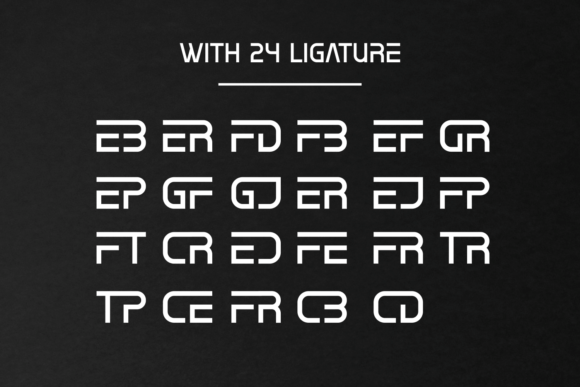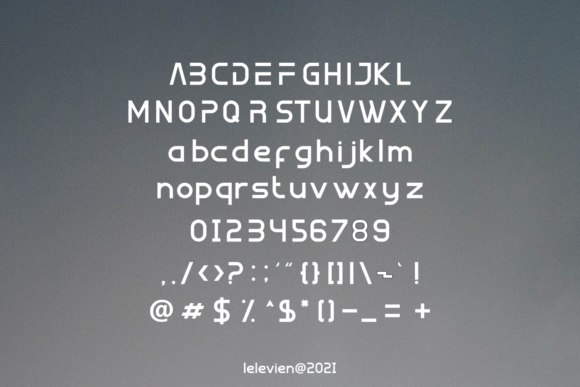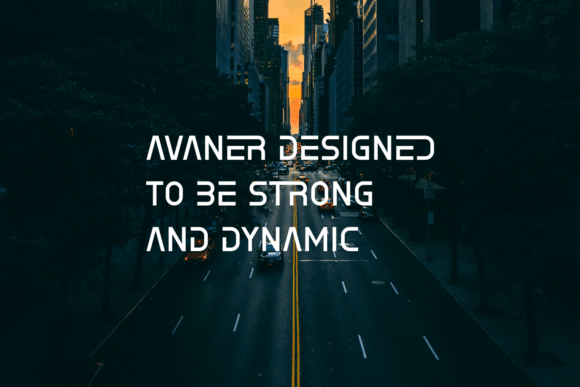
Avaner Font: Elevate Your Designs with a Stylish and Unique Display Font
Are you tired of using the same old fonts in your designs? Do you want to add a touch of elegance and sophistication to your creative projects? Look no further than Avaner Font, a stylish and uniquely-shaped display font that’s sure to take your designs to the next level. In this article, we’ll explore the features and benefits of Avaner Font, and show you how to make the most of this amazing font in your designs.
What is Avaner Font?
Avaner Font is a display font that’s designed to make a statement. With its unique shape and stylish design, it’s perfect for adding a touch of glamour to your creative projects. Whether you’re working on a logo, a poster, or a website, Avaner Font is sure to turn heads. This font is not just a simple font, but a design element that can elevate your entire project.
Key Features of Avaner Font
So, what makes Avaner Font so special? Here are just a few of its key features:
- Stylish and Unique Design: Avaner Font has a stylish and uniquely-shaped design that’s sure to make your designs stand out.
- High-Quality Design: This font is designed with high-quality in mind, ensuring that it looks great in any design.
Benefits of Using Avaner Font
So, why should you choose Avaner Font for your designs? Here are just a few of the benefits of using this amazing font:
- Adds Elegance and Sophistication: Avaner Font adds a touch of elegance and sophistication to your designs, making them perfect for high-end projects.
- Stand Out from the Crowd: With its unique design, Avaner Font helps your designs stand out from the crowd and grab attention.
- Versatile: This font is versatile and can be used in a variety of designs, from logos and posters to websites and more.
- Easy to Read: Despite its unique design, Avaner Font is easy to read, making it perfect for body text as well as headlines.
- Customize Your Design: Customize your design as needed, using the font’s various glyphs and ligatures.
Tips and Tricks for Using Avaner Font
Here are a few tips and tricks for getting the most out of Avaner Font:
- Experiment with Different Sizes: Experiment with different font sizes to see how Avaner Font looks in different contexts.
- Pair with Other Fonts: Pair Avaner Font with other fonts to create a unique and interesting design.
- Use in Combination with Images: Use Avaner Font in combination with images to create a visually appealing design.
In conclusion, Avaner Font is a stylish and uniquely-shaped display font that’s perfect for adding a touch of elegance and sophistication to your designs. With its PUA encoding and easy-to-use design, it’s a great choice for designers and crafters of all levels. Whether you’re working on a logo, a poster, or a website, Avaner Font is sure to take your designs to the next level.